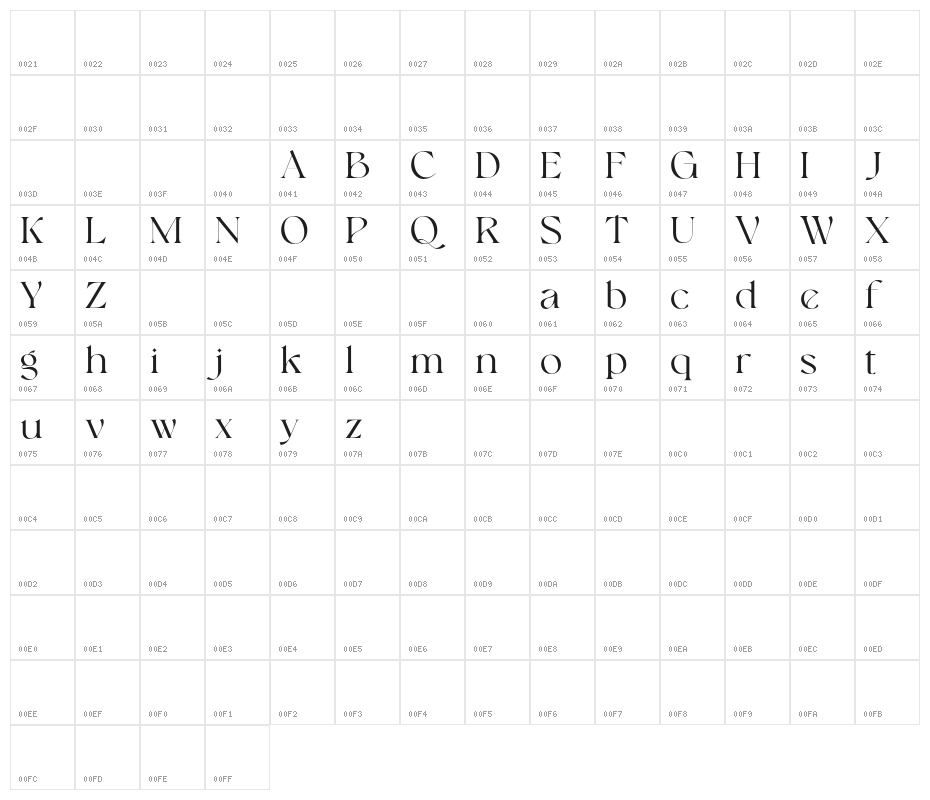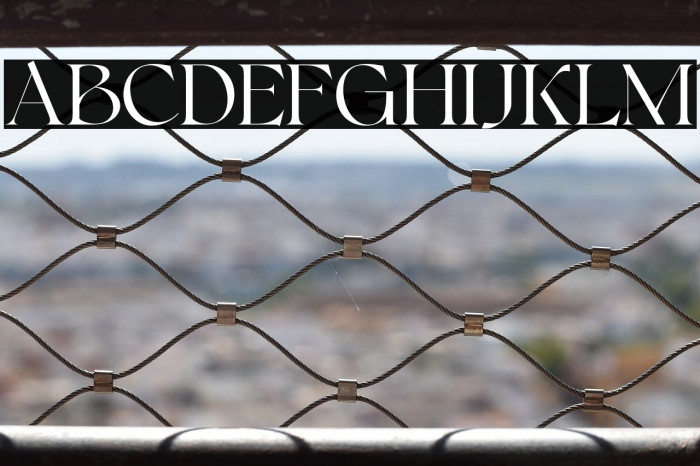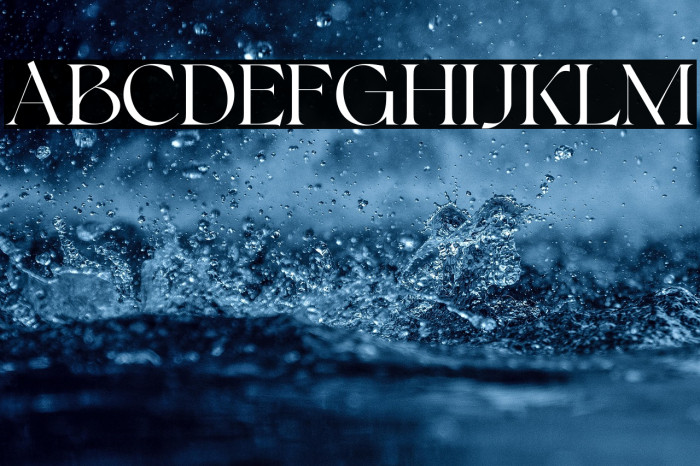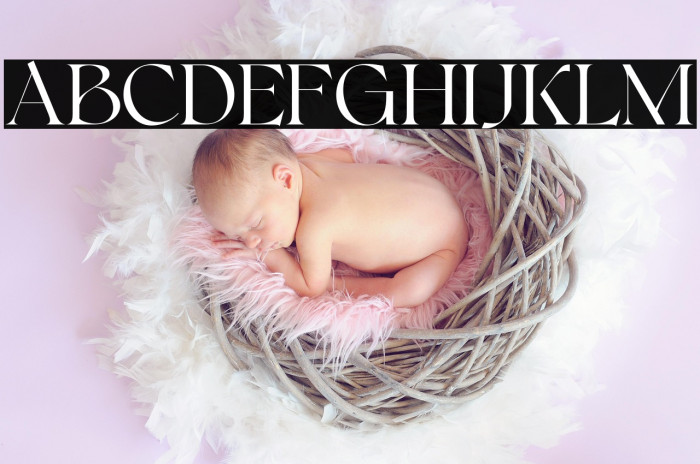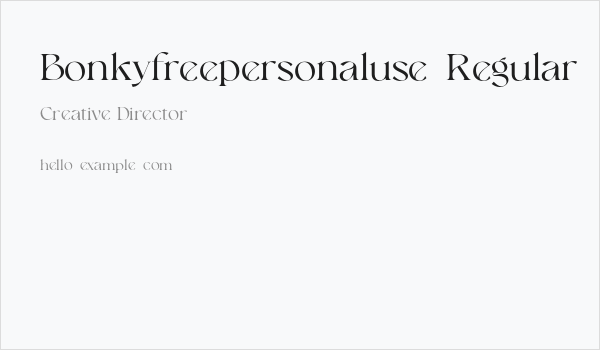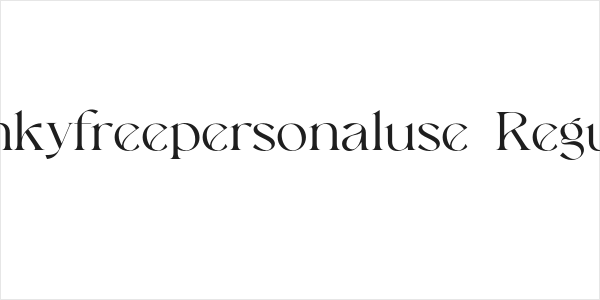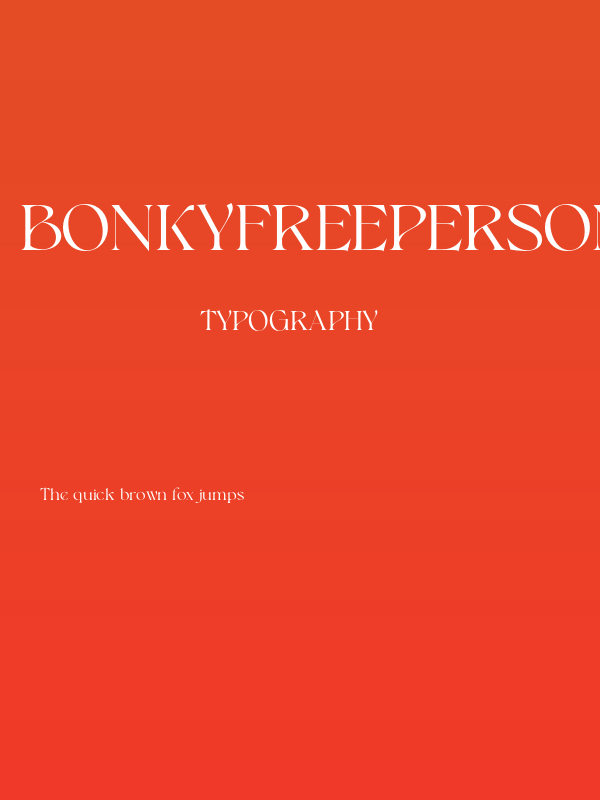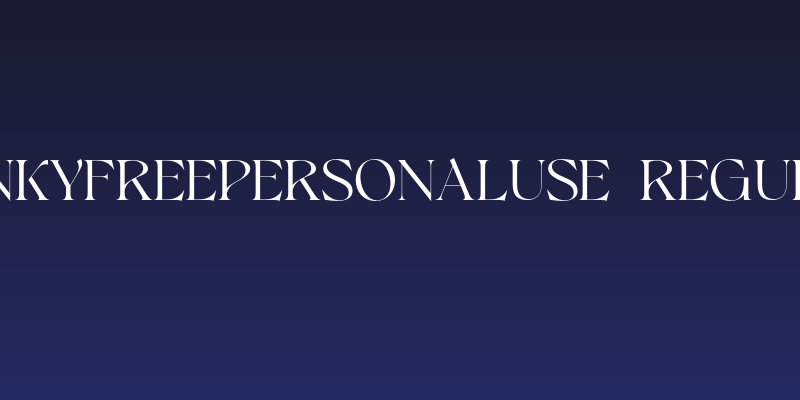
Bonkyfreepersonaluse-Regular Font
This font features a unique blend of elegance and modernity, characterized by its high contrast between thick and thin strokes. The serifs are sharp and pronounced, adding a touch of sophistication. The uppercase letters exhibit a classic style with a modern twist, while the lowercase letters maintain a consistent flow, enhancing readability. The overall design is both stylish and functional, making it suitable for a variety of applications. The special characters are crafted with the same attention to detail, ensuring a cohesive look across all elements.
Proposed ProjectsIdeal for luxury branding, editorial design, fashion magazines, and elegant invitations.